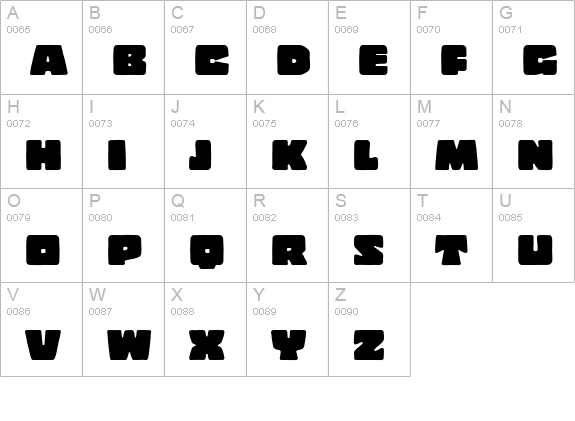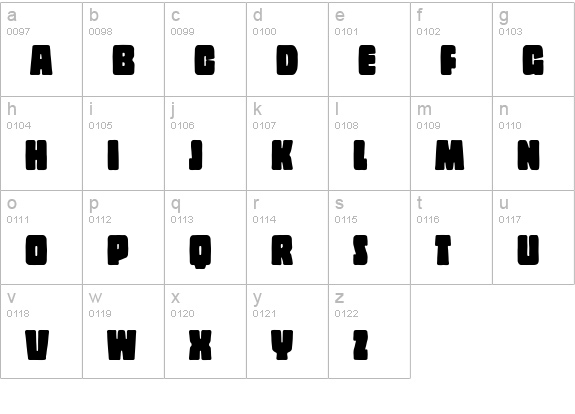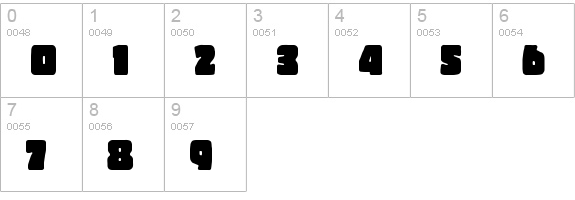
Copal Solid Font Details
Copal Solid is a modern and elegant typeface that exudes sophistication and charm. With its clean lines and rounded edges, this font is perfect for adding a touch of class to any design project. Whether you're creating a sleek logo, stylish branding, or eye-catching headlines, Copal Solid is sure to make a statement. This versatile font is available in a range of weights, making it suitable for a variety of design applications. From bold and impactful to light and airy, Copal Solid offers a versatility that is sure to impress. Best of all, Copal Solid is completely free to download at FontsMarket.com. This means you can add this stunning font to your collection without breaking the bank. Don't miss out on the opportunity to elevate your designs with the timeless beauty of Copal Solid. Download it today and start creating with style and confidence.